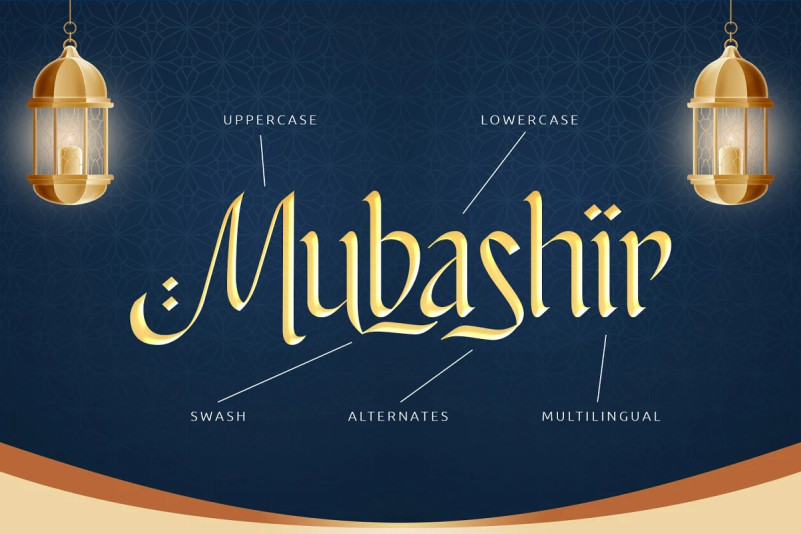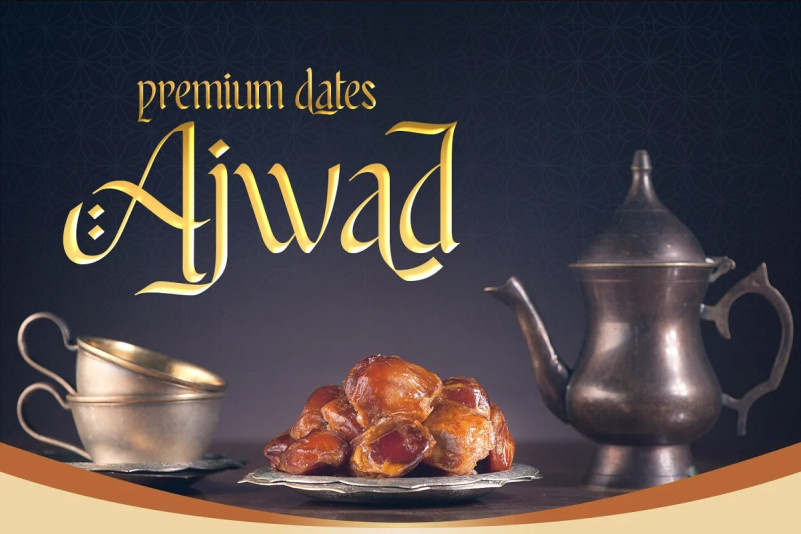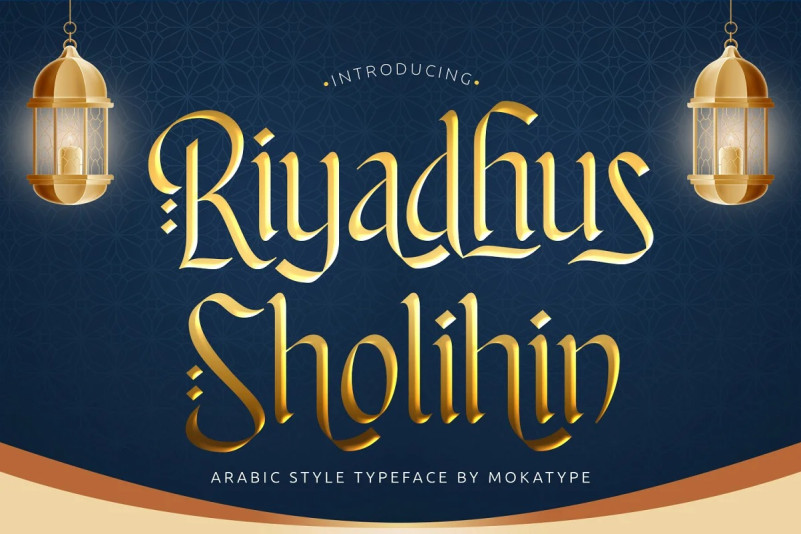
Riyadhus Sholihin Font
Riyadhus Sholihin Font – Our fresh new collection of modern display fonts inspired by Italic handwritten calligraphy with strong and unique character suitable for designing logos, templates, brochures, videos, advertising branding, and more. Riyadhus Sholihin font with challenging Arabic nuances and equipped with alternates and swashes. very suitable for headlines, typography, Poster, magazines, brochures, packaging, Websites, and much more for your design needs.